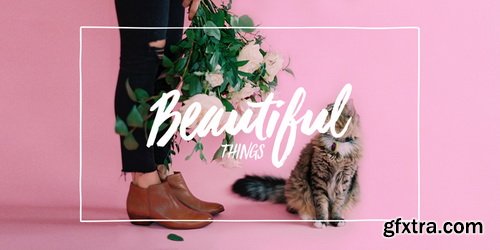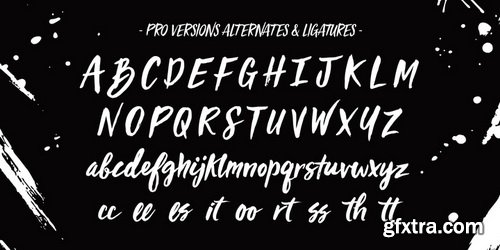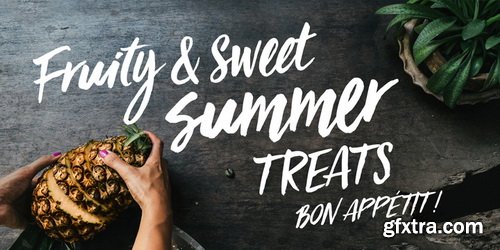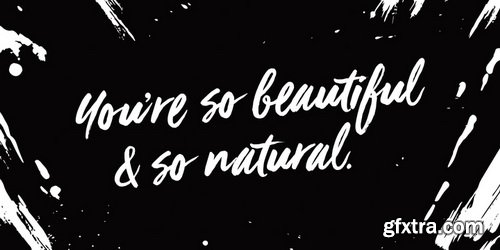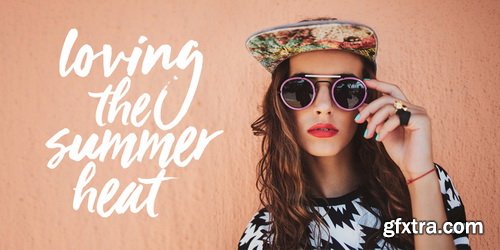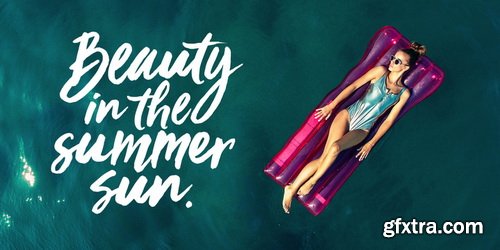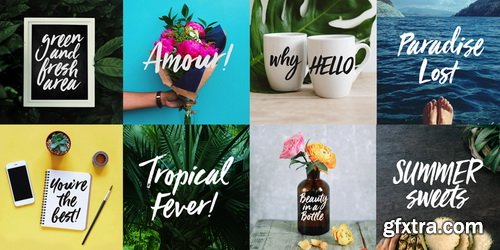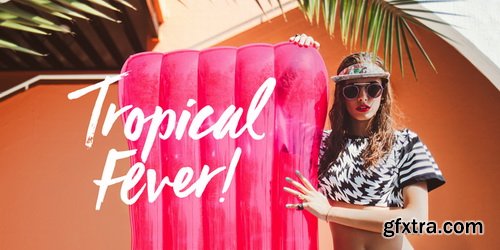
Viva Beautiful is a lovely hand painted brush script. Viva Beautiful includes two script styles (Regular or B) and an all caps font. Both scripts come in a basic or pro version.Viva Beautiful Pro and Viva Beautiful Pro B include opentype alternates and common ligatures. Try the alternates and ligatures to give your designs a realistic hand painted look. Viva Beautiful and Viva Beautiful B include opentype ligatures. The all caps font is a basic version and pairs beautifully with any Viva script.
This brush script family works best for fashion, beauty products, food, apparel and magazines. Viva Beautiful could also be used for film, television, marketing, advertising and websites.Bring beauty to your designs with Viva Beautiful!